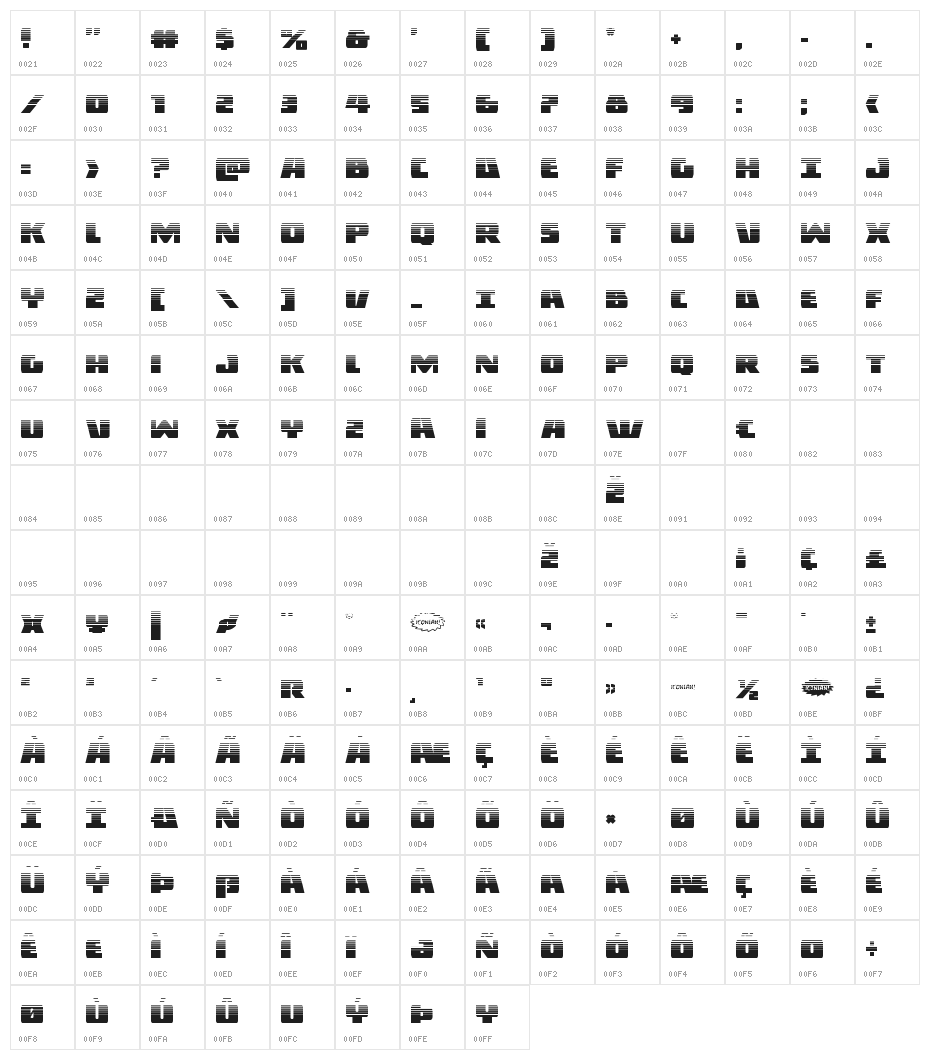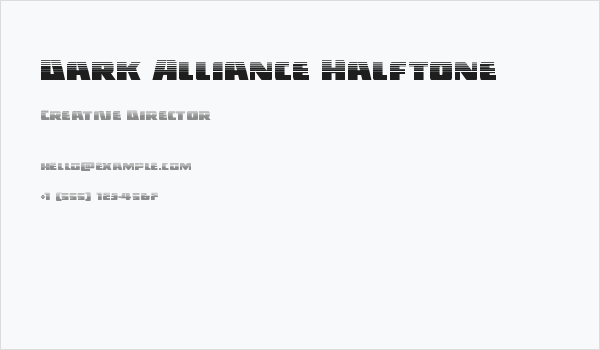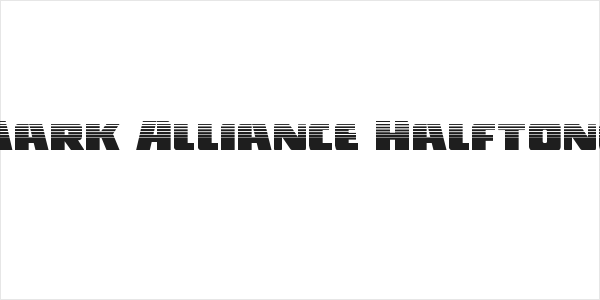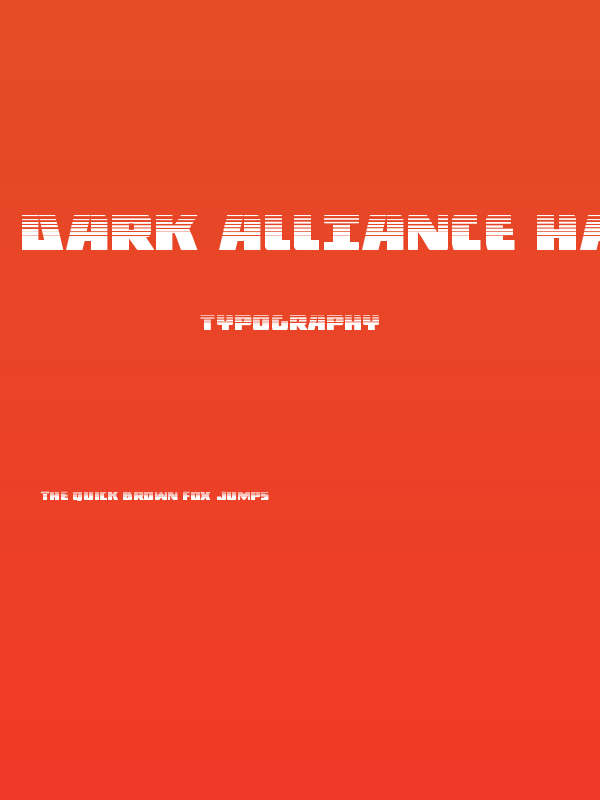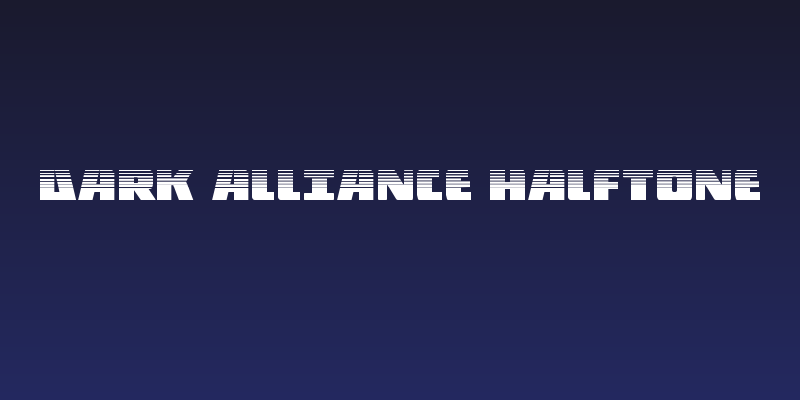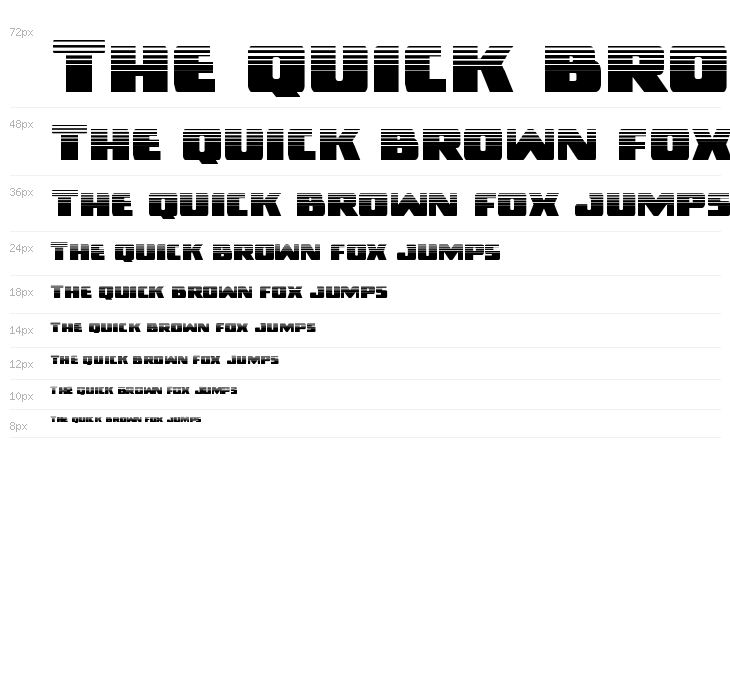
Dark Alliance Halftone Font
Dark Alliance Halftone Description
This font features a bold, futuristic design with a halftone effect that gives it a dynamic and edgy appearance. The characters are constructed with a strong geometric structure, incorporating horizontal lines that create a sense of movement and depth. The uppercase and lowercase letters maintain a consistent style, with the halftone lines adding a unique texture. Numbers and special characters are designed to match the bold and striking aesthetic, making this font ideal for attention-grabbing designs. The overall style is modern and innovative, perfect for projects that require a bold statement.
| Proposed Projects | Ideal for sci-fi themed designs, video game titles, posters, and branding that requires a modern and bold look. |